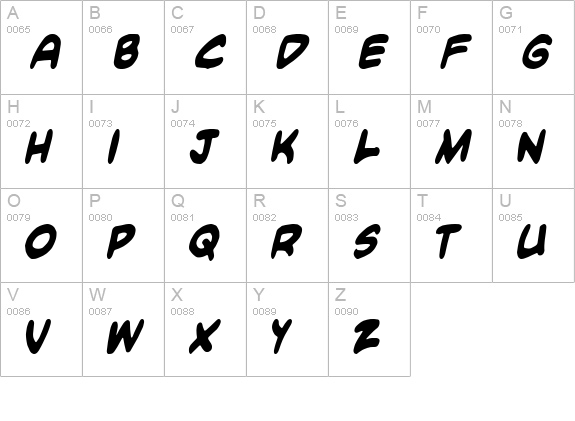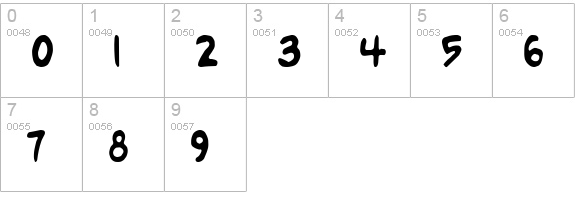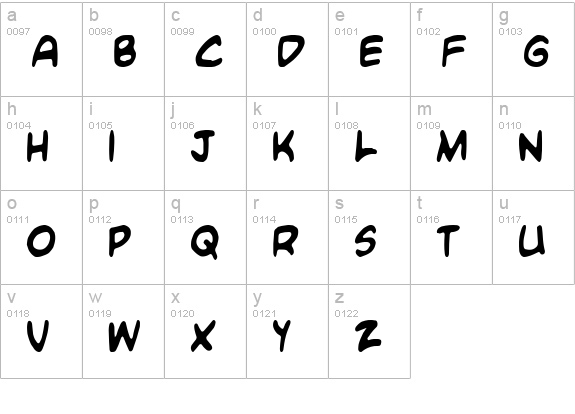
Blambot Custom font is a stylish and versatile typeface designed for various design projects. With its unique blend of modern and classic elements, this font is perfect for adding a touch of sophistication to any creative endeavor. The sleek lines and smooth curves of Blambot Custom make it ideal for branding, logos, posters, and more. One of the best things about Blambot Custom font is that it is available for free download at FontsMarket.com. This means you can easily access this premium font without any cost, making it a valuable addition to your font library. Whether you're a designer looking to elevate your projects or a hobbyist wanting to experiment with new typography, Blambot Custom font is the perfect choice. Download it today and start creating stunning designs with ease!